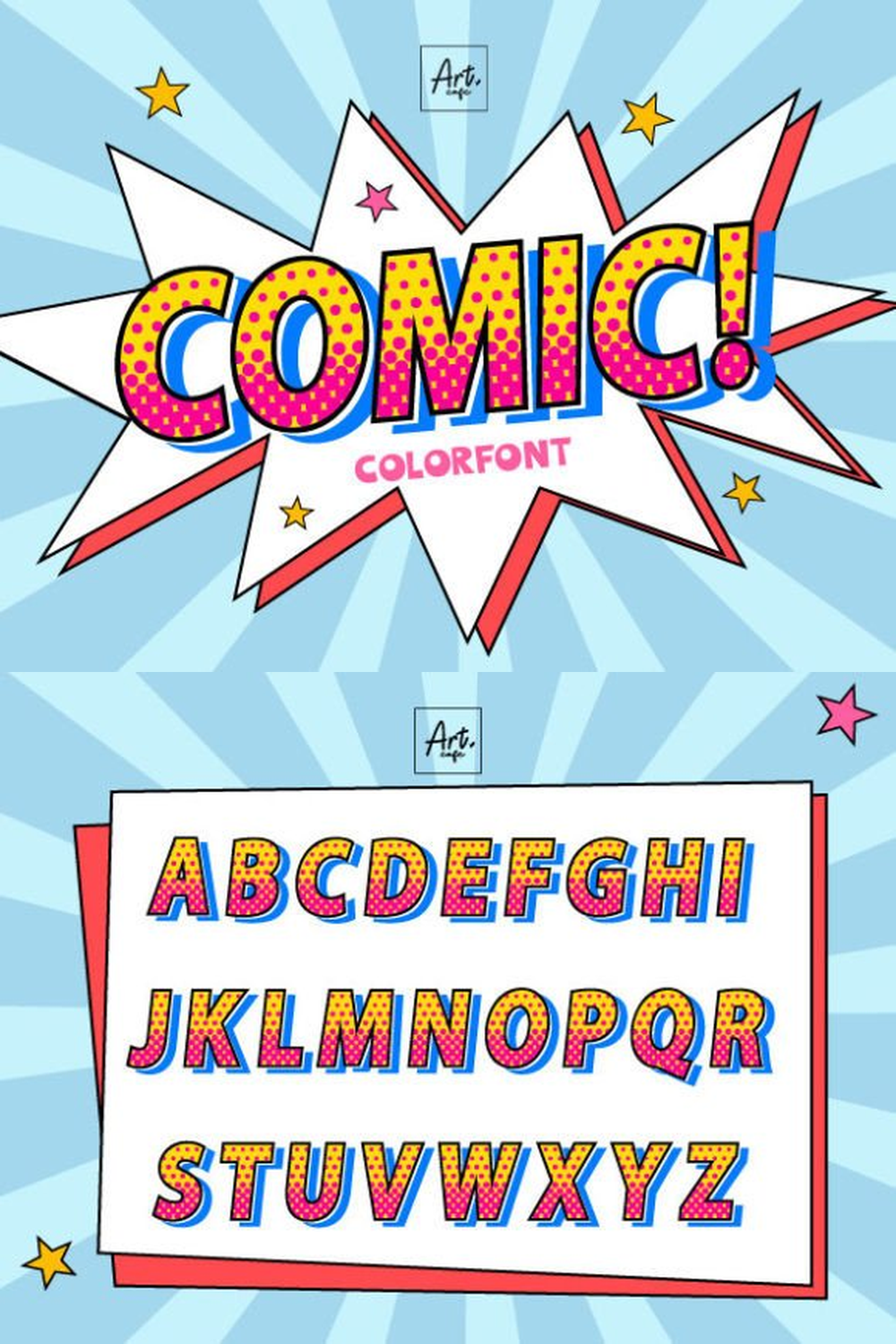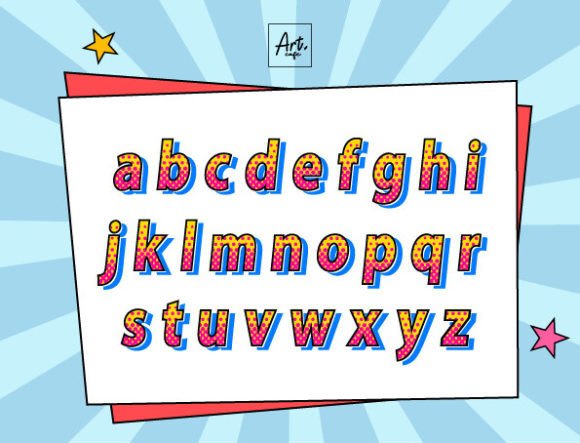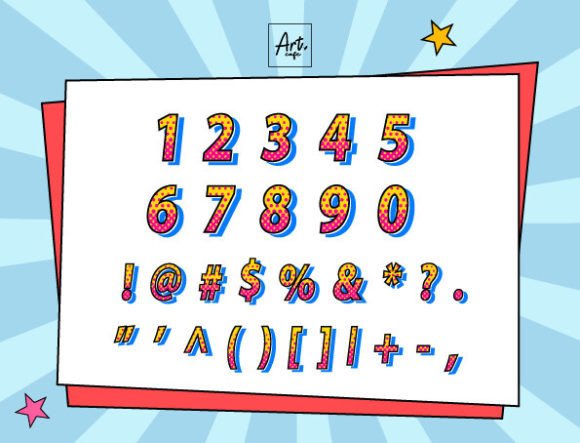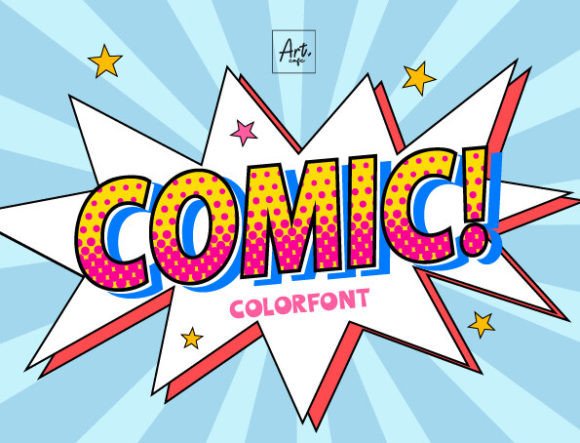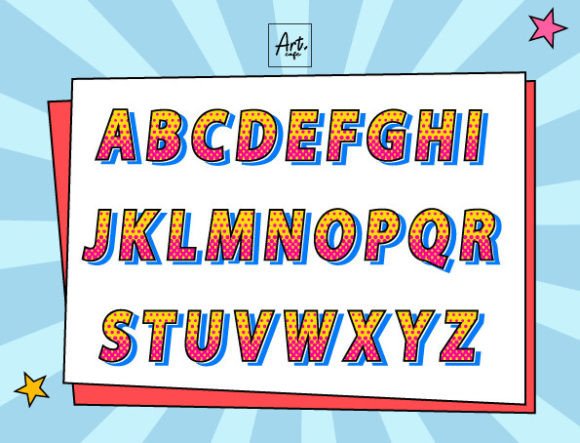
Comic Font
About the Comic Font
Elevate your designs with Comic Font, a font that combines sophistication with readability. Unleash your creative flair with Comic – a vibrant, pop-art-inspired font exuding retro charm. Brimming with color, it effortlessly turns any headline or poster into a playful, engaging masterpiece. Discover how its cheerful, fun-loving aura makes it an excellent choice for children’s events or vivacious parties. With each stroke recalling the nostalgia of yesteryears, the Comic font adds a delightfully vintage essence to your designs.
Comic Font excels in headline applications, posters, and packaging where its playful energy can shine. It’s ideal for brands targeting a younger demographic or those with a retro, fun aesthetic. Avoid using it for body text or UI elements; its decorative nature compromises readability in extended passages.
Pairing Comic Font with a clean sans-serif like Helvetica Neue for body copy creates a strong visual contrast, balancing its playful character with a professional touch. Alternatively, a simple serif like Garamond can add a touch of classic elegance, grounding the overall design. For a more consistent retro feel, consider pairing it with a geometric sans-serif font.
The font’s core personality is undeniably playful and nostalgic, making it a vibrant choice for projects requiring a cheerful and attention-grabbing visual style.